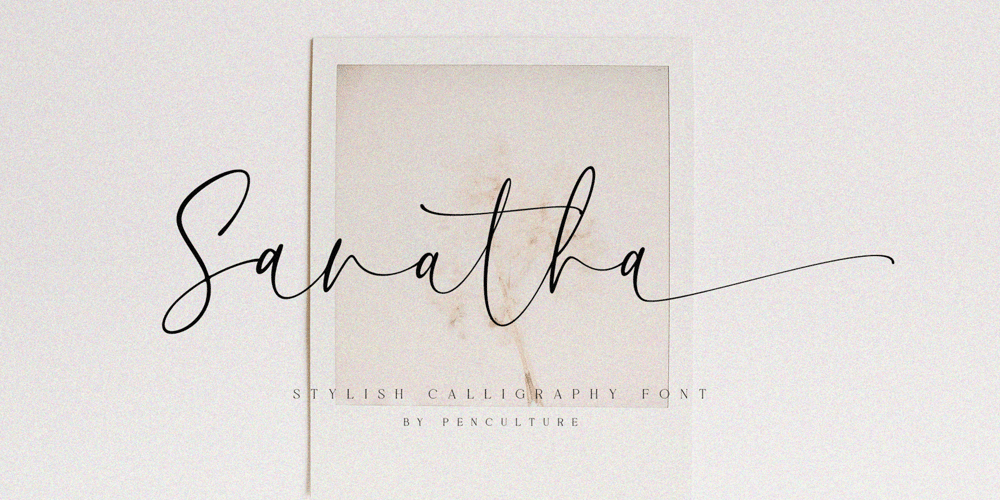
Sanatha Font Family was designed by Revo Farsiky and published by Pen Culture. Sanatha contains 1 styles and family package options. Proudly Present “Sanatha – A Stylish Calligraphy Font”Sanatha is a stylish calligraphy font with natural handwritten that perfect for any kind of design project like wedding invitation, branding, poster and others. This font come with lovely swashes and ton of ligature which make this font stylish and elegant.What inside and what will you get: Uppercase and lowercase letter Number and punctuation Ligature Lovely swashes I really hope you enjoy it – please do let me know what you think, comments & likes are always hugely welcomed and appreciated. More importantly, please don’t hesitate to drop me a message if you have any issues or queries.Thank you